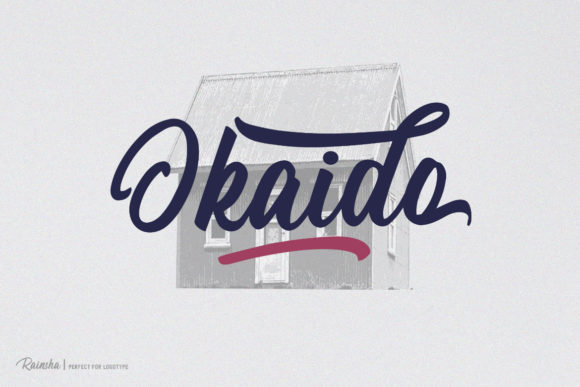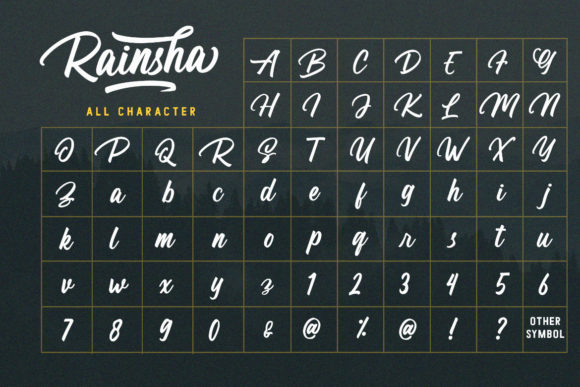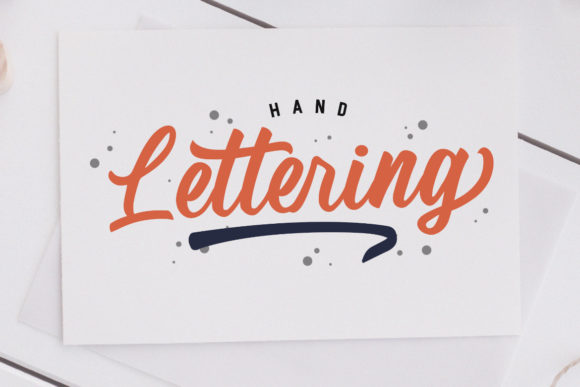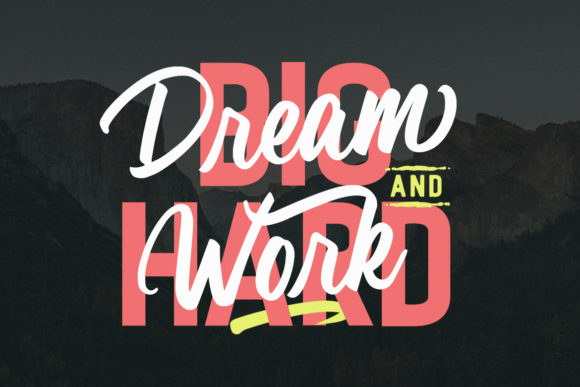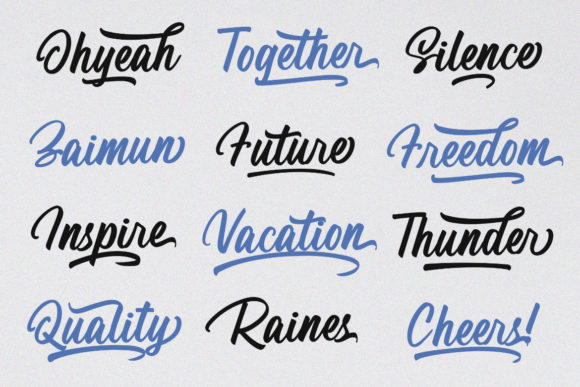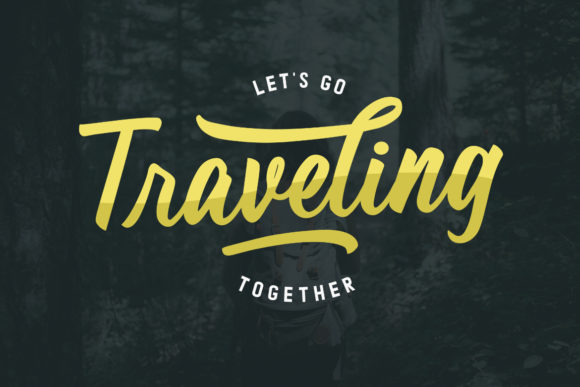
Introduction to Rainsha Font
There’s nothing quite like the feeling of stumbling upon the perfect design element for a project. The spark of creativity, the rush of excitement, and the satisfaction of bringing your vision to life – it’s a feeling every designer knows well. For me, that moment came when I discovered the Rainsha Font. Its bold, paint-brushed strokes and handwritten charm immediately caught my eye, and I knew I had to learn more.
As a valuable addition to any designer’s toolkit, Rainsha Font offers a unique blend of style and sophistication. Its high-quality design makes it perfect for adding a touch of elegance to your creative projects, from logos and branding to advertisements and social media graphics. With a transparent background, you can easily incorporate it into your designs without worrying about clutter or distractions.
Whether you’re looking for a free download to spice up your next project or a reliable design resource to elevate your brand, Rainsha Font is sure to deliver. Its confident and dynamic feel makes it an ideal choice for designers seeking to add a touch of personality to their work.
Key Features of Rainsha Font
- High-quality design resource with a unique, hand-drawn style, ideal for creative projects.
- Features a transparent background, allowing for seamless integration into designs.
- Designed with a modern and elegant aesthetic, making it perfect for a wide range of applications.
- Perfect for use in graphic design, digital art, and other creative projects where a high-quality, unique font is desired.
Honest Review: Rainsha Font
As a designer, I’m always on the lookout for high-quality design resources to elevate my creative projects. The Rainsha Font has caught my attention, and I’m excited to share my honest review.
- ✨ Beautiful and elegant design: The Rainsha Font boasts a stunning, modern aesthetic that’s perfect for a variety of creative projects.
- ✨ High-quality font: The font is crisp and clear, making it suitable for both digital and print applications.
- ✨ Transparent background: This feature allows for seamless integration with various design elements, giving you more flexibility in your projects.
- ⚠️ Limited character set: The Rainsha Font may not have the extensive character set you need for certain projects, which can be a drawback.
- ⚠️ Not ideal for very small text sizes: While the font looks great at larger sizes, it may become difficult to read at very small text sizes.
Overall, the Rainsha Font is a solid design resource that can add a touch of elegance to your projects. If you’re looking for a high-quality font with a beautiful design, the Rainsha Font is definitely worth checking out. Plus, it’s free to download, making it an attractive option for designers on a budget.